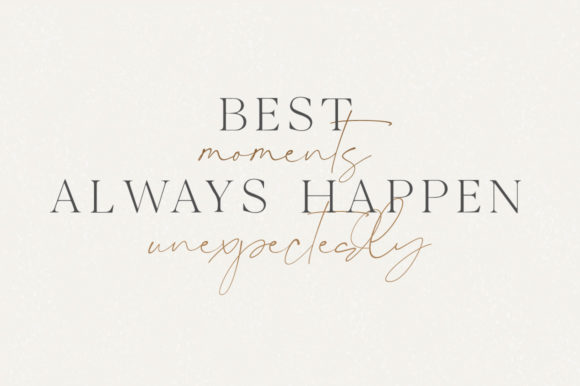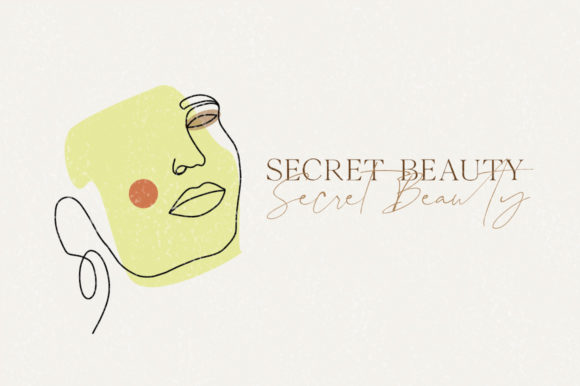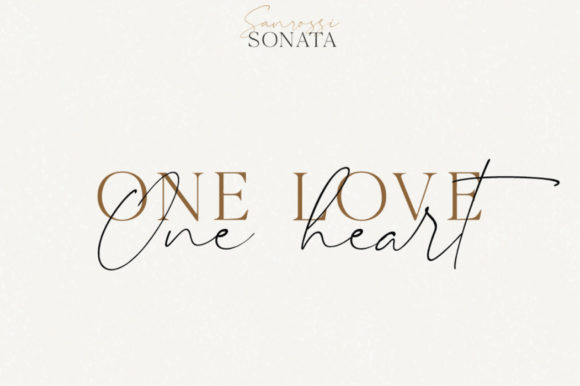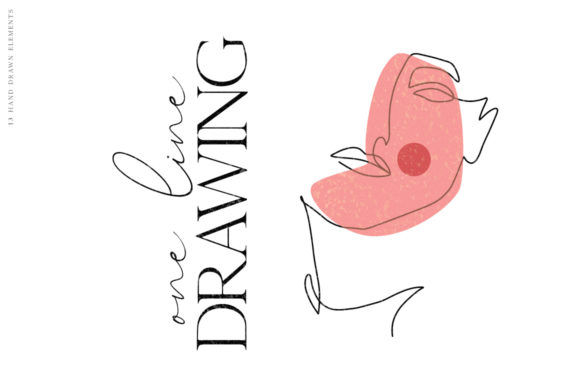
Introduction to Sanrossi Sonata Duo Font
Sanrossi Sonata Duo consists of a sophisticated signature-style script, and an elegant serif font.
With impeccably refined curves and silky smooth edges, this font duo is perfect for adding a modern touch to your projects .